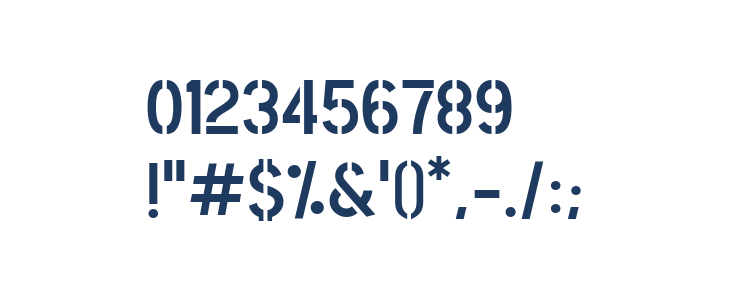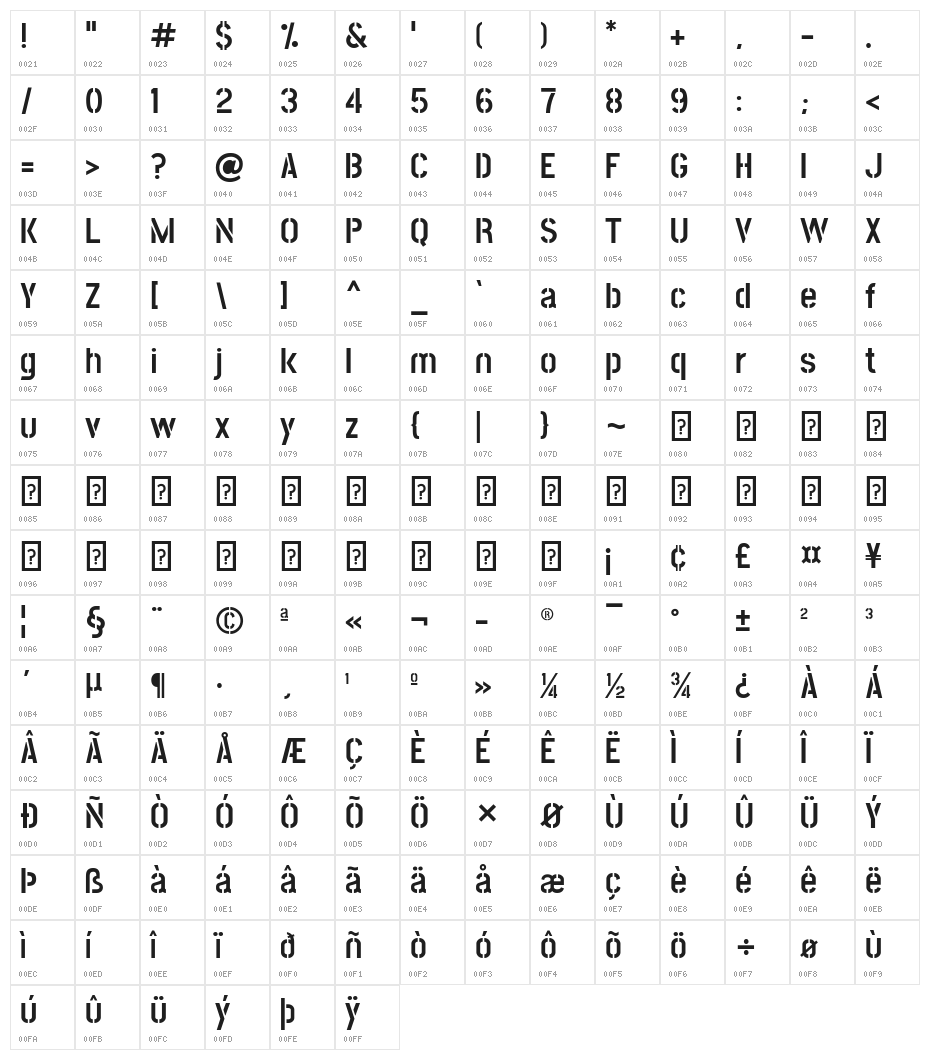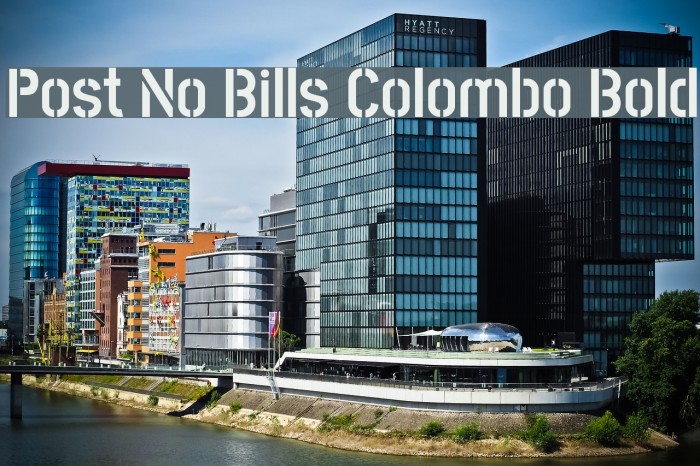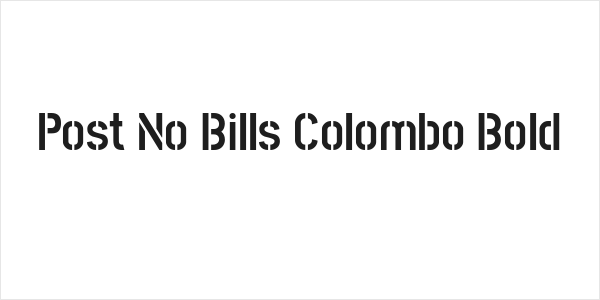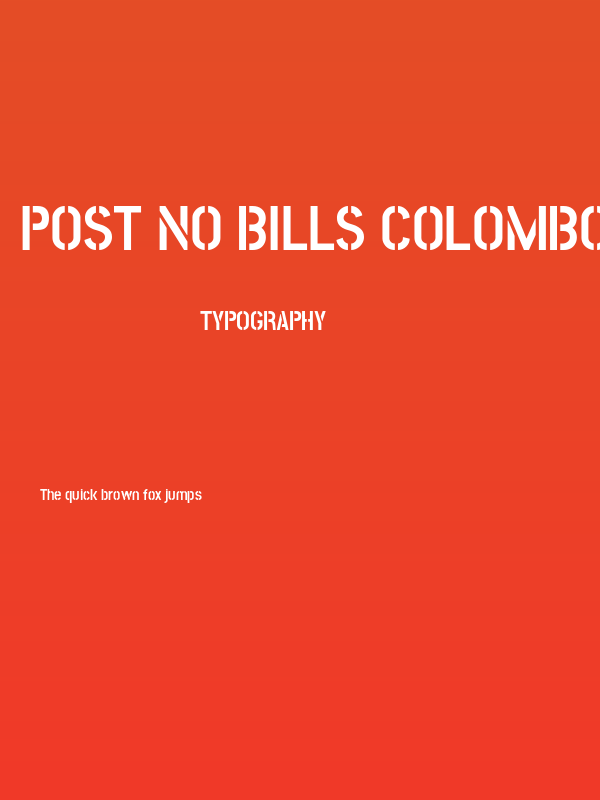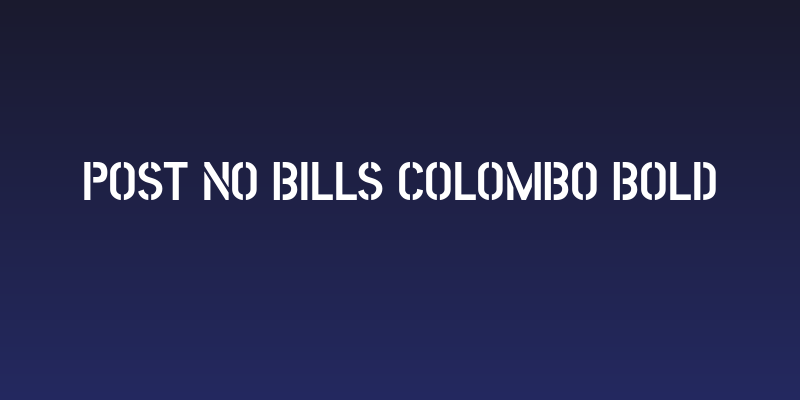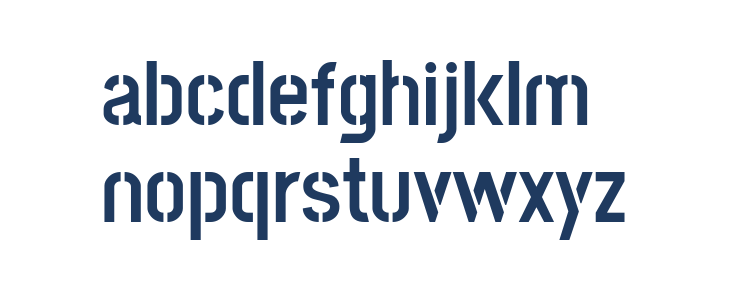
Post No Bills Colombo Bold Font
Post No Bills Colombo Bold Description
This font features a bold and striking design with a modern, geometric aesthetic. The characters are constructed with thick, uniform strokes, creating a strong visual impact. The uppercase and lowercase letters maintain a consistent style, with sharp angles and clean lines. The numerals and special characters follow the same bold design, ensuring a cohesive look across all text elements. The font's unique cut-out style adds a distinctive touch, making it ideal for attention-grabbing headlines and displays.